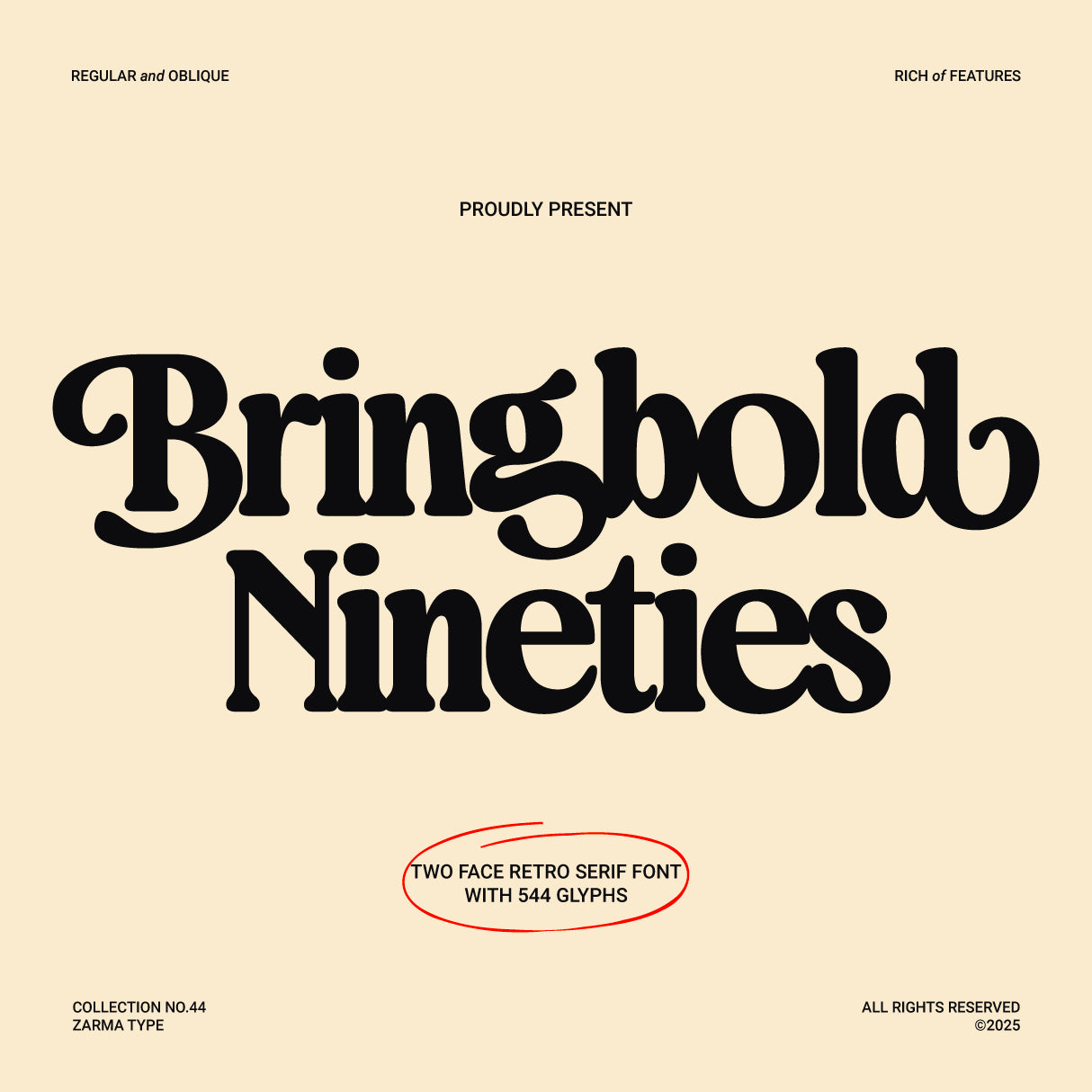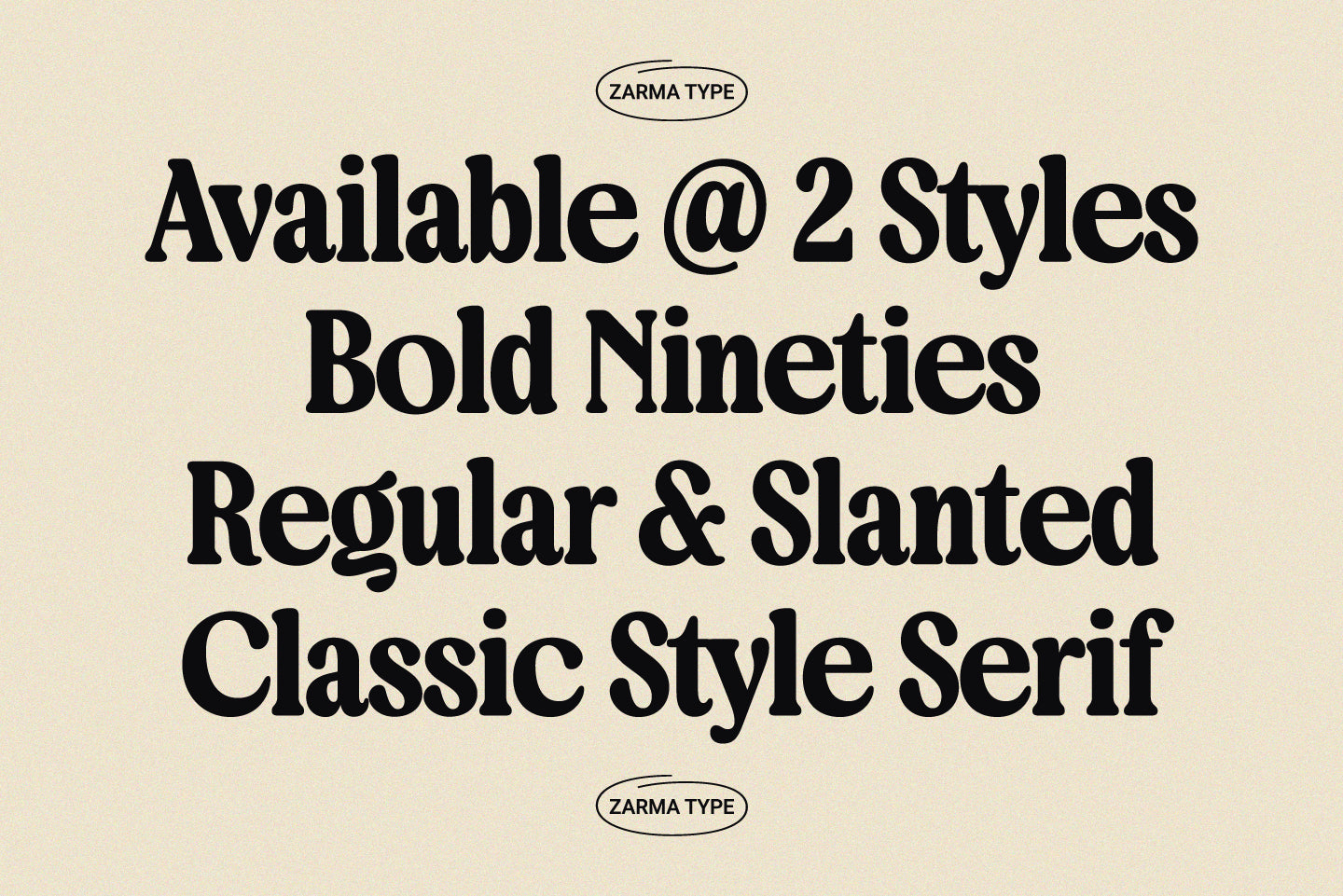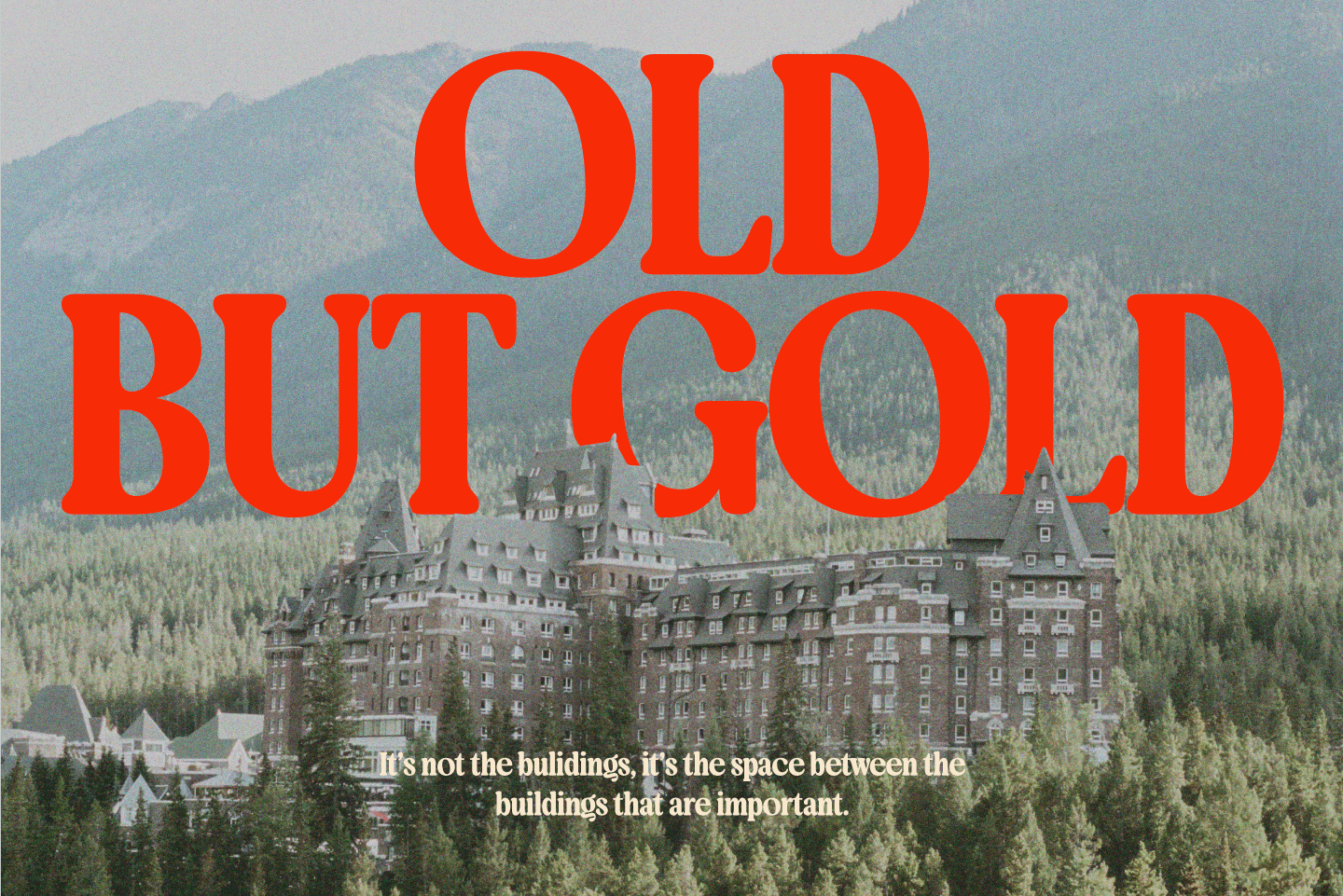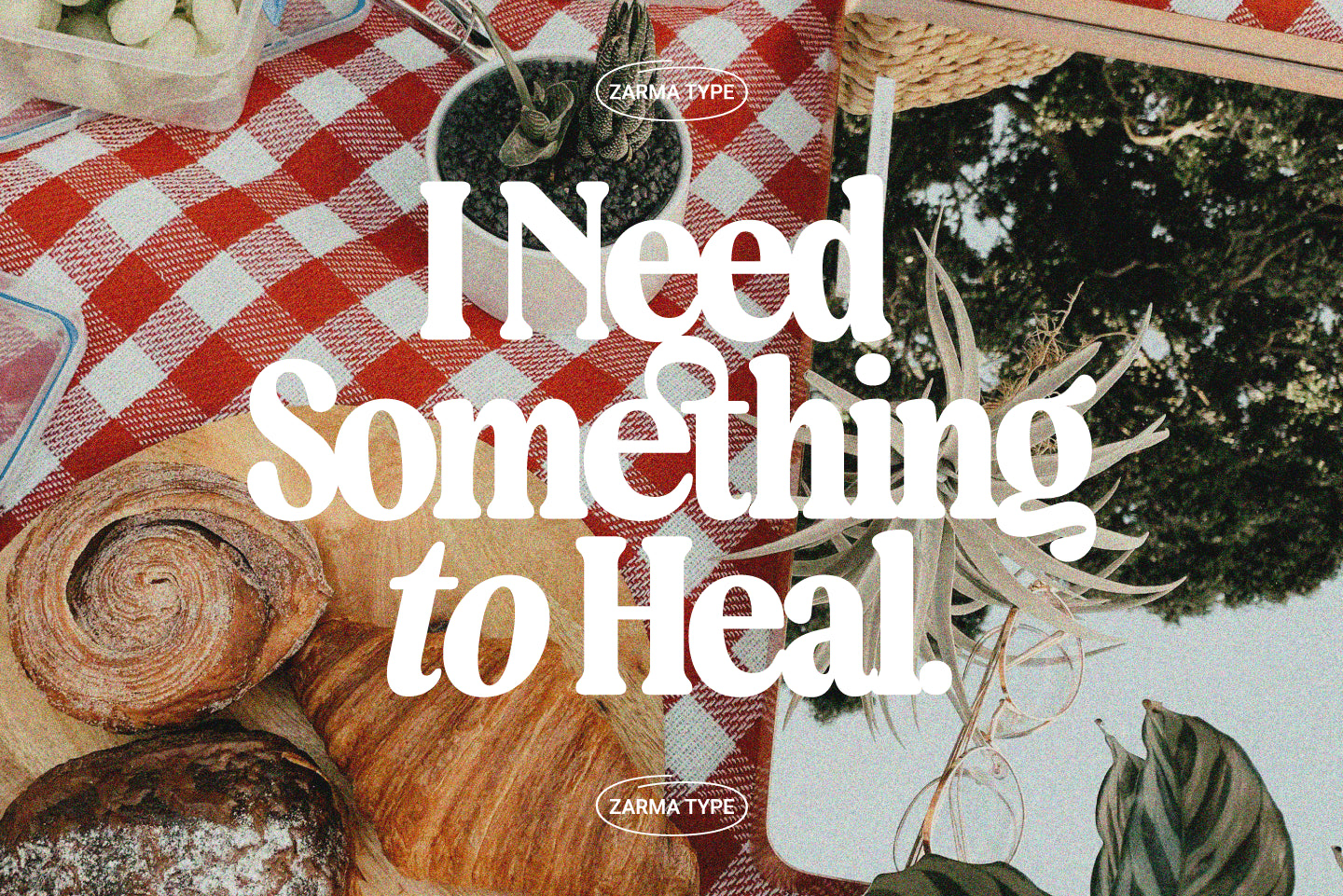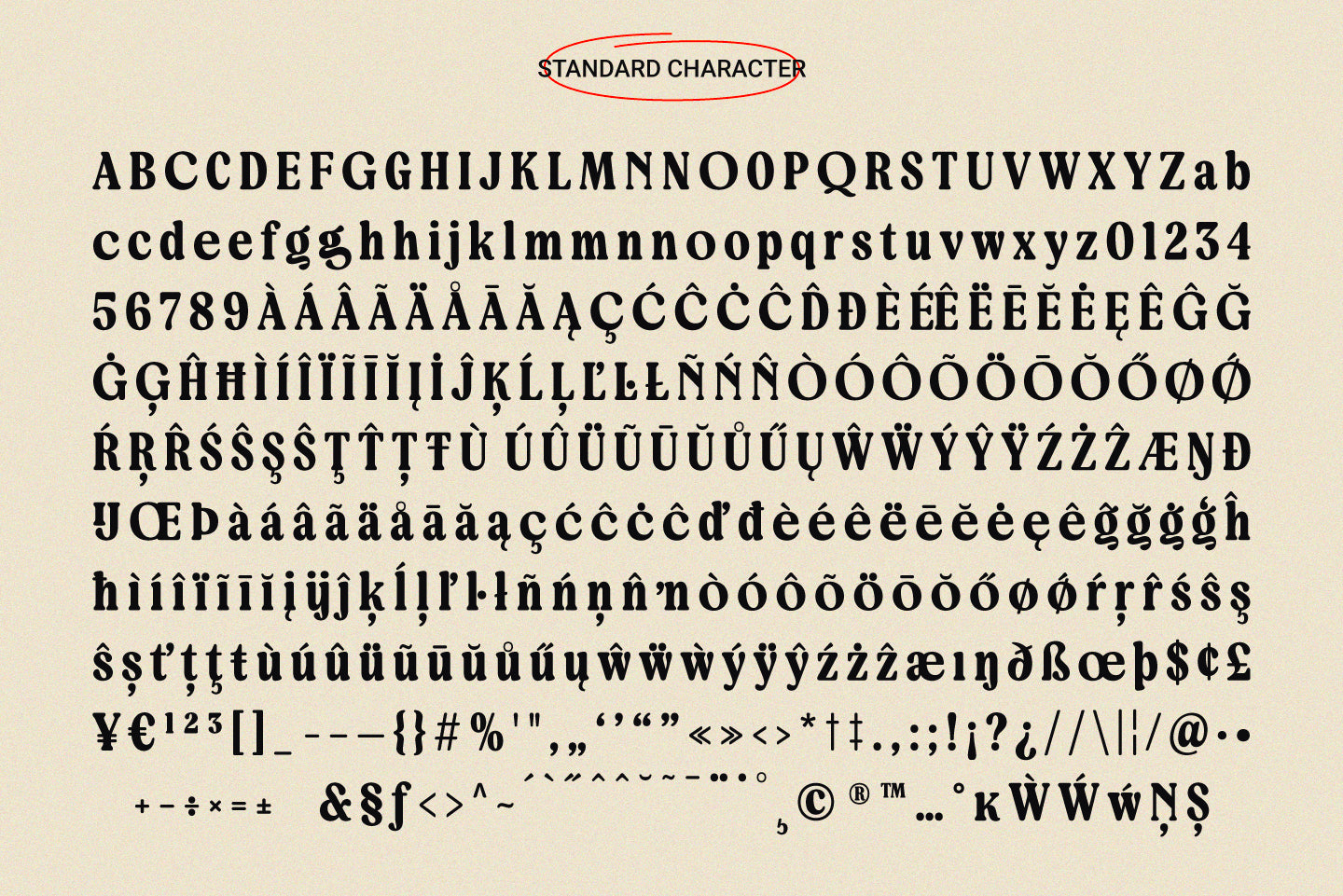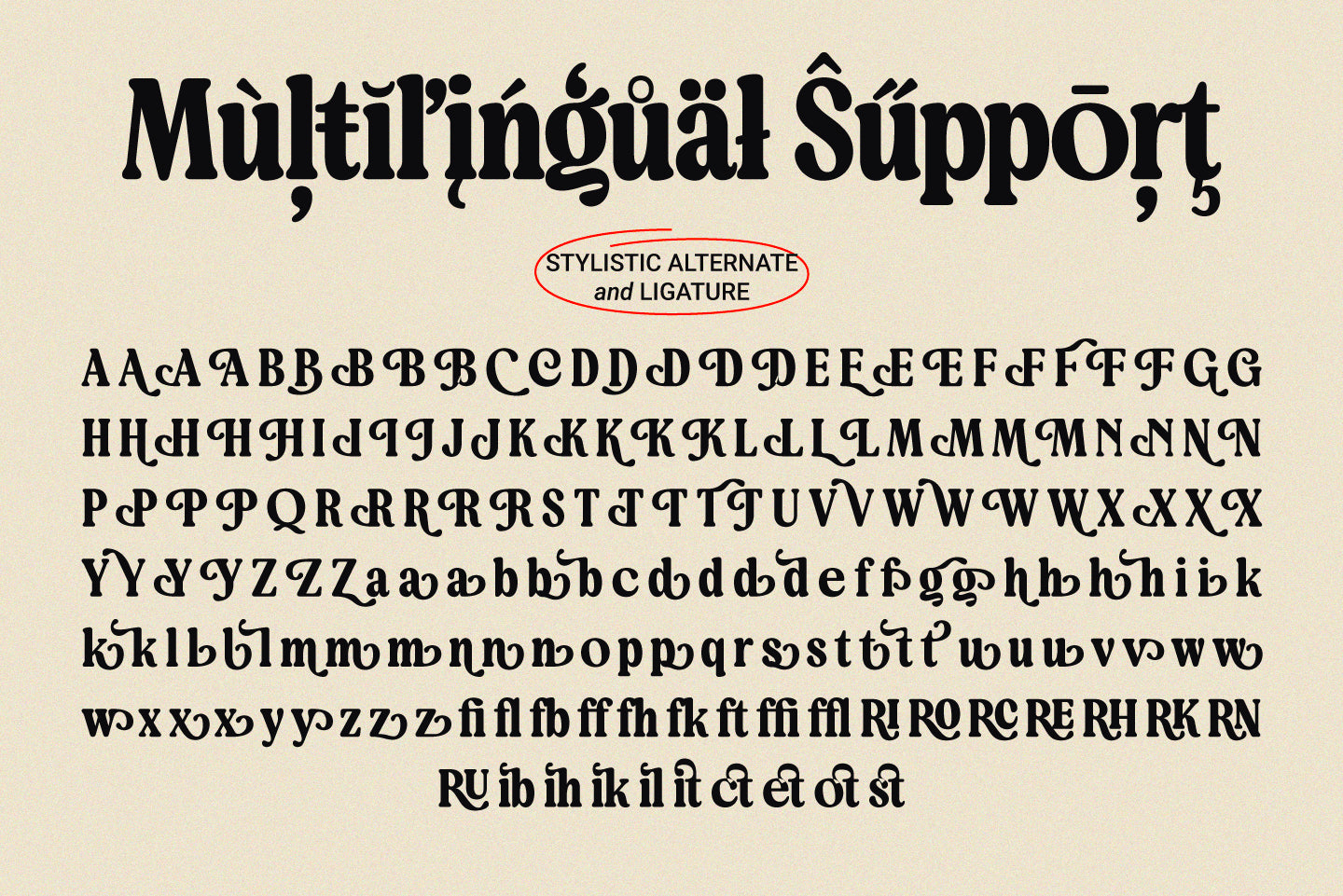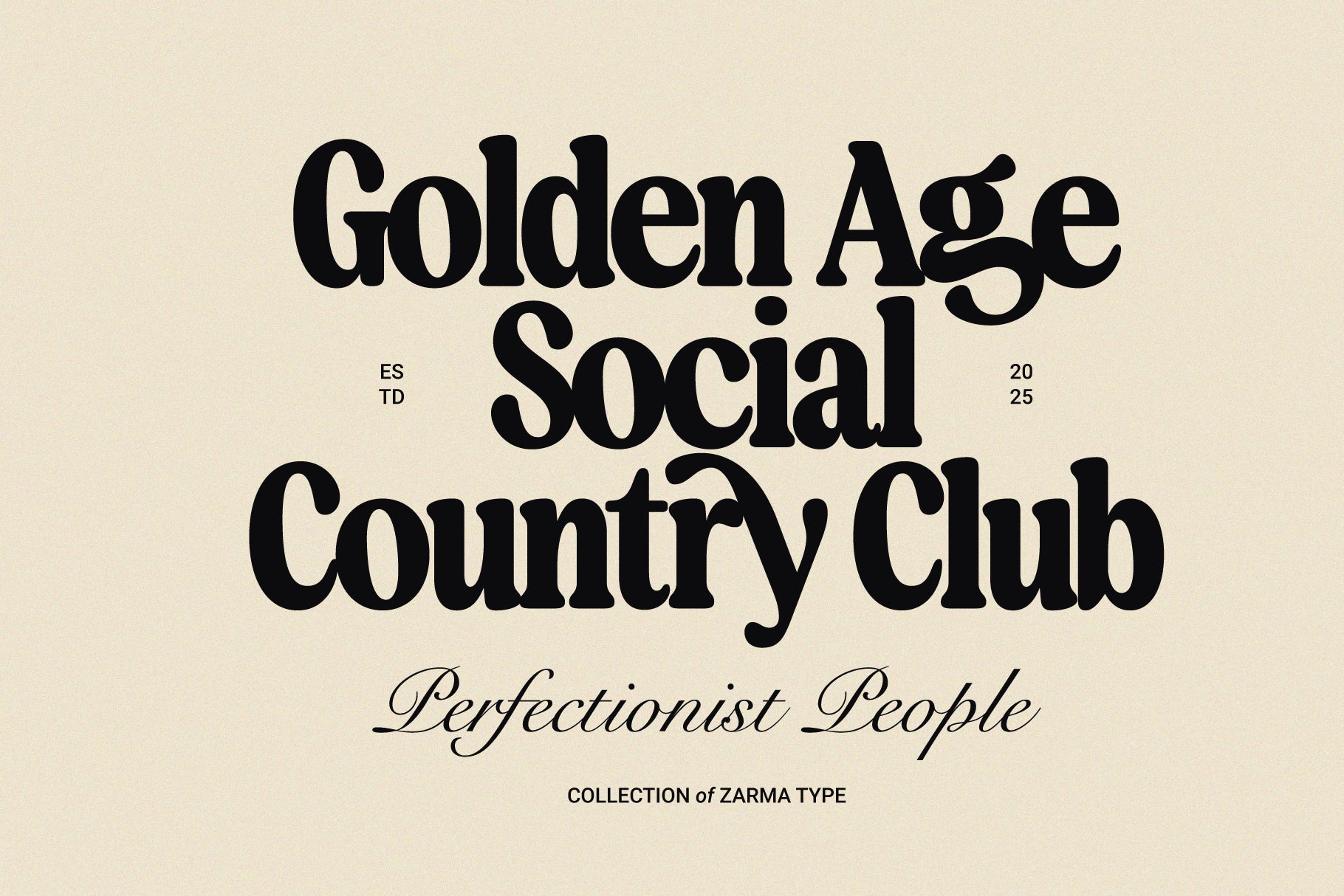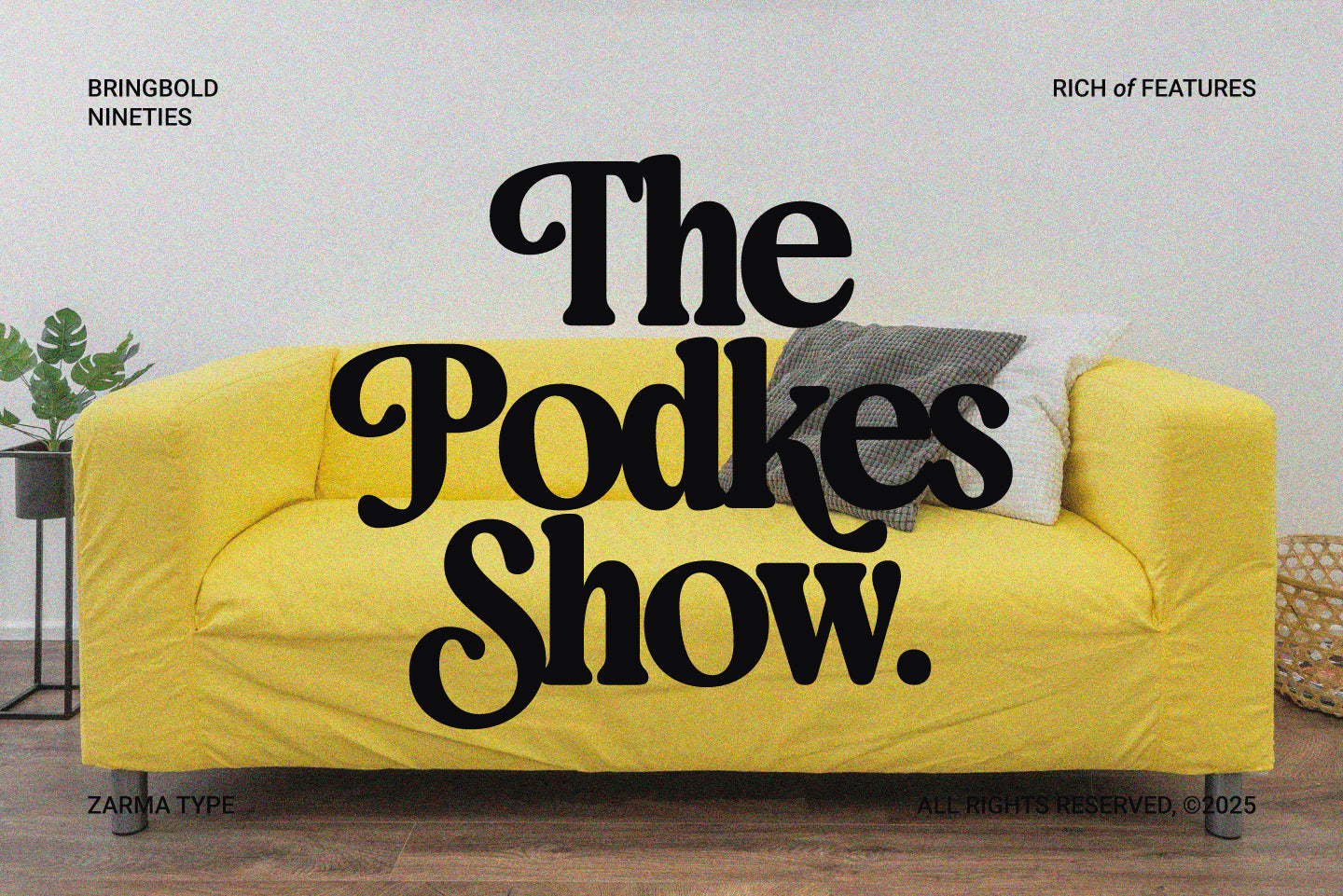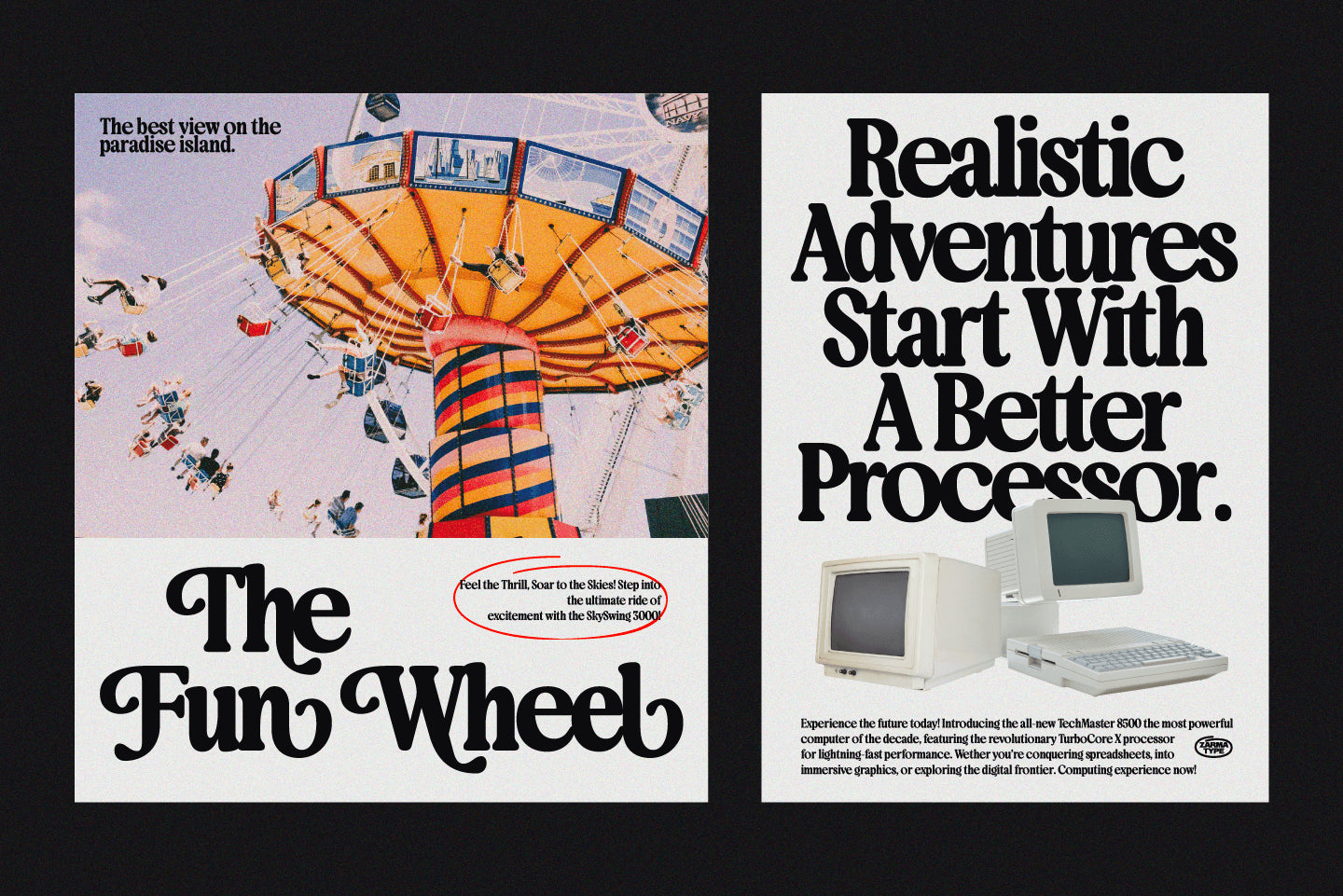
Bringbold Nineties Font
Bringbold Nineties is a bold Classic Serif Font inspired by the unmistakable style of 90s retro design, blending vintage nostalgia with a fresh modern edge. Available in Regular and Slanted styles, it features crisp serif details, strong letterforms, and expressive OpenType features that make it perfect for retro branding, logo design, vintage packaging, editorial headlines, album covers, posters, restaurant branding, and fashion labels. Its rich collection of stylistic alternates, decorative swashes, and custom ligatures gives every composition a distinctive personality while preserving a timeless classic aesthetic.
Designed for professional typography, Bringbold Nineties includes Multilingual Support, PUA Encoded Characters, Stylistic Alternates, Standard & Discretionary Ligatures, Optimized Kerning, and a Complete Punctuation Set for maximum creative flexibility. Whether you're creating nostalgic branding or bold editorial layouts, Bringbold Nineties delivers the perfect combination of retro character, refined craftsmanship, and modern usability.
Bringbold Nineties is a bold Classic Serif Font that combines 90s retro design with modern elements, available in Regular and Slanted styles. It features crisp serif details, strong letterforms, and a variety of OpenType features, including multilingual support, stylistic alternates, ligatures, optimized kerning, and a complete punctuation set.